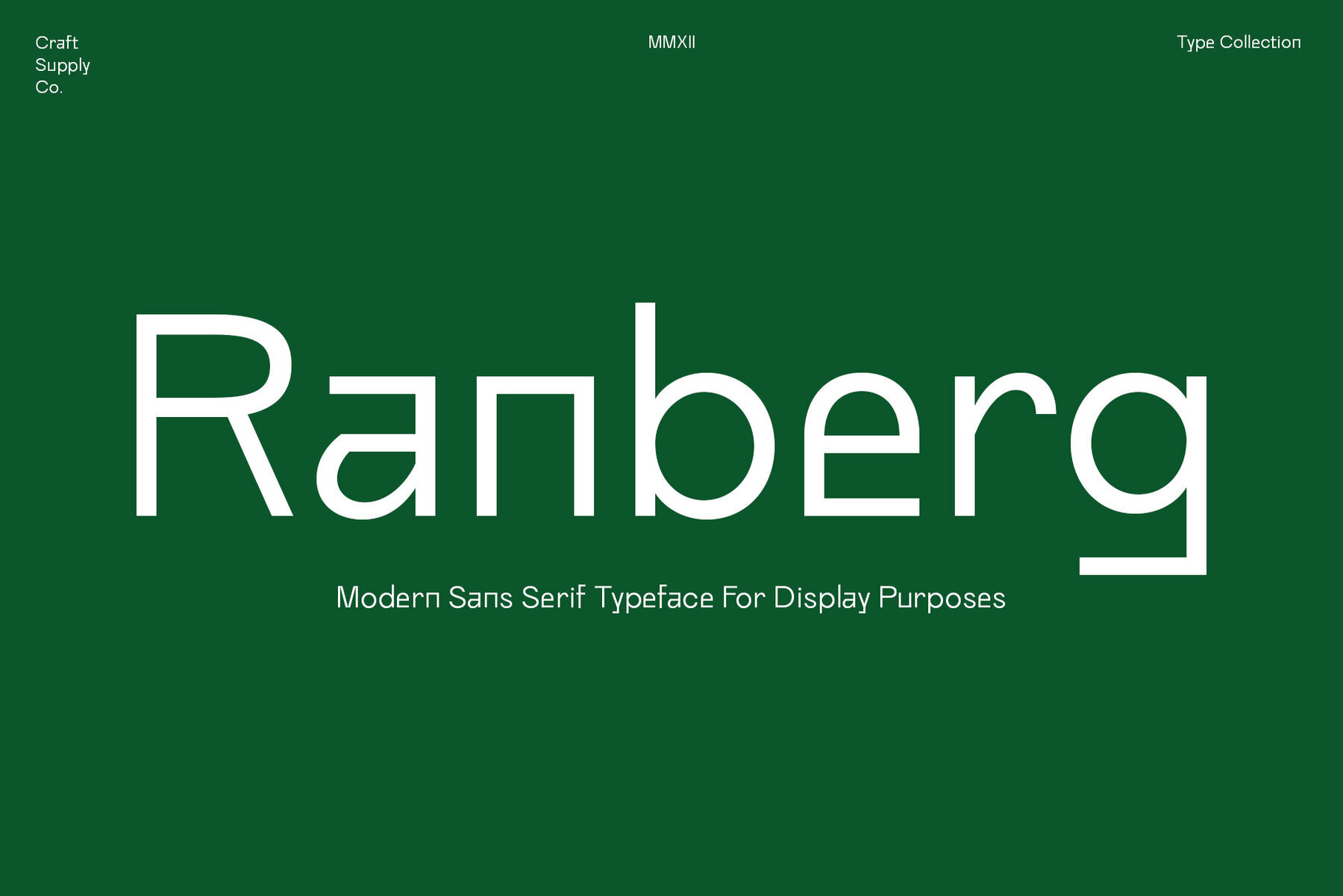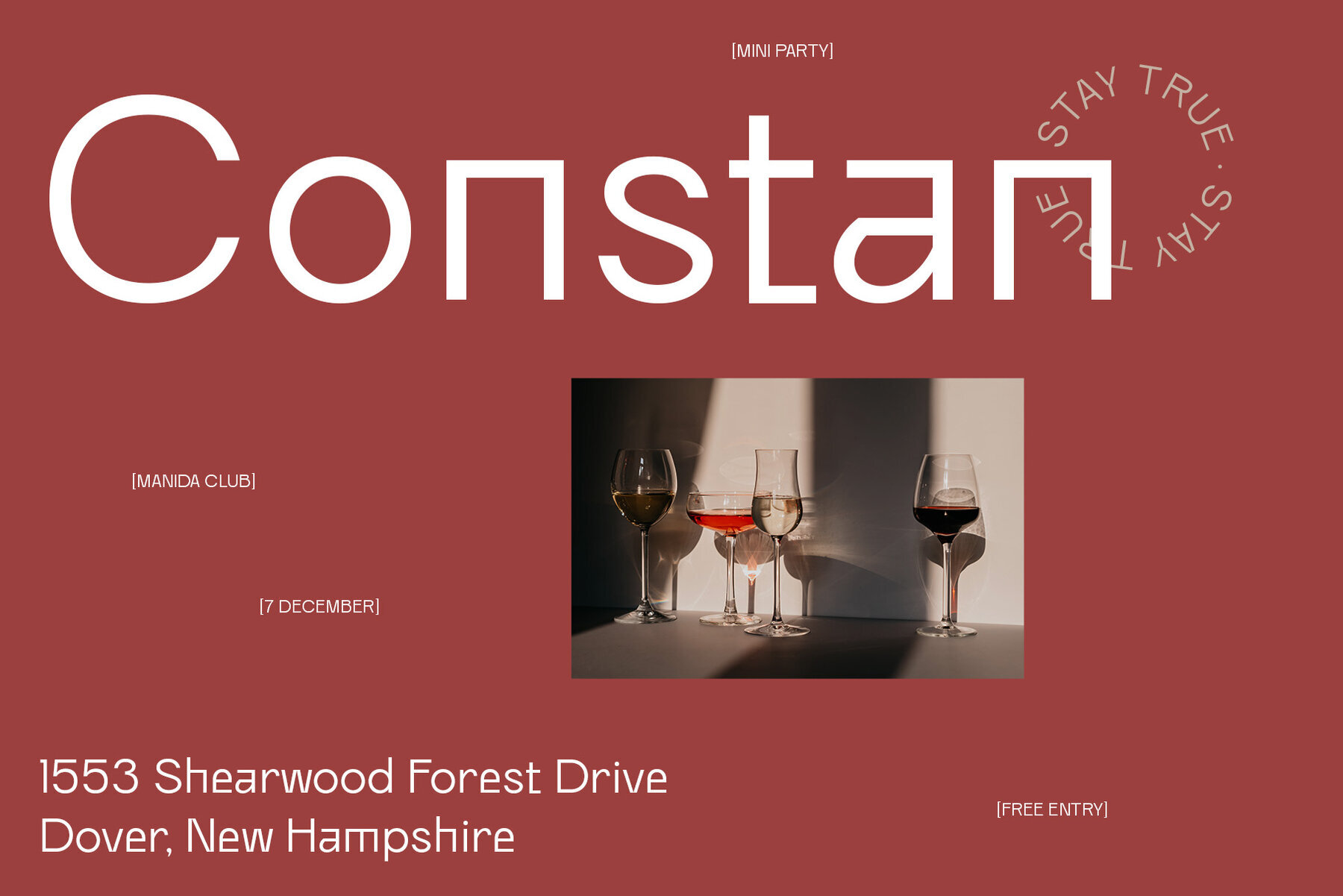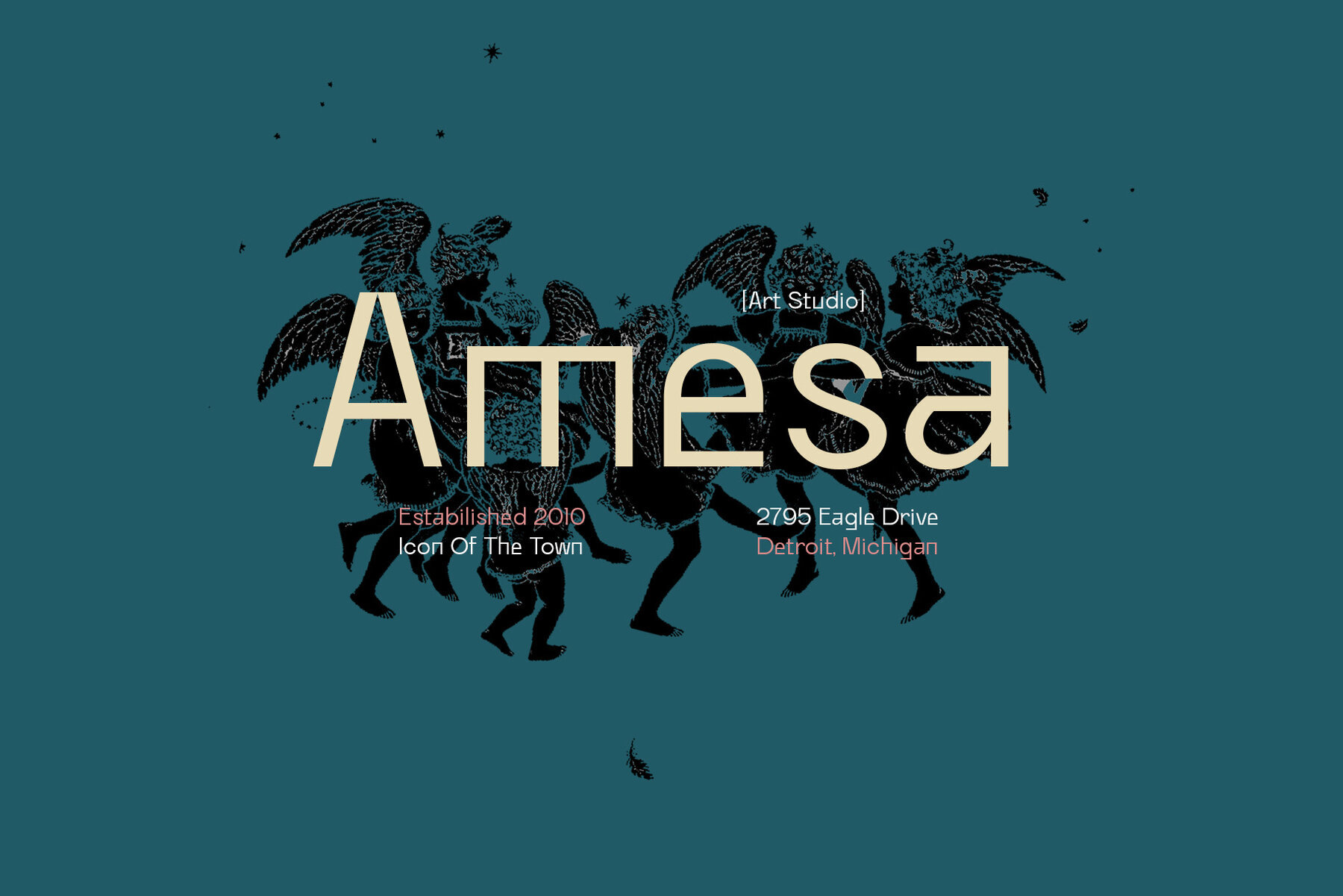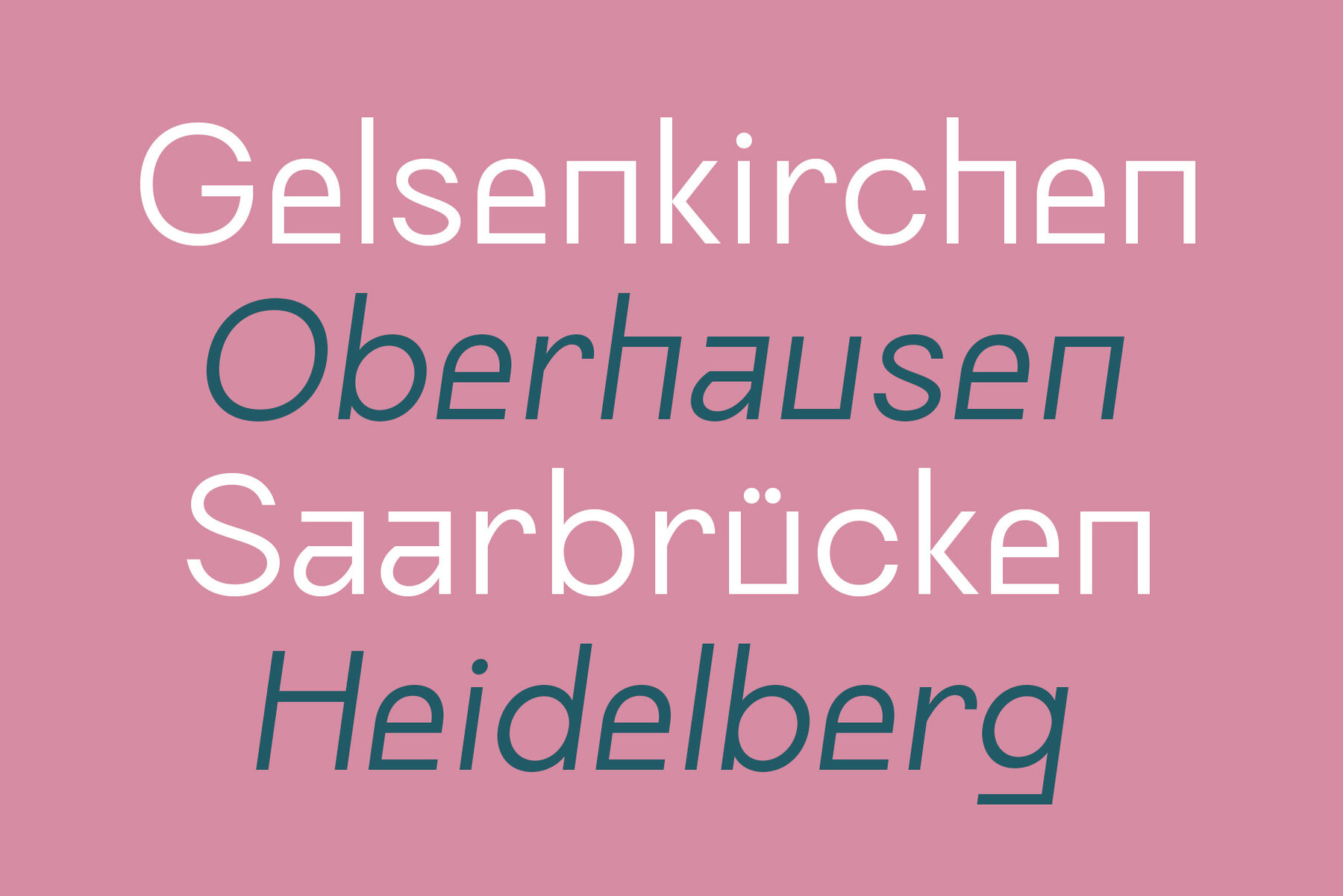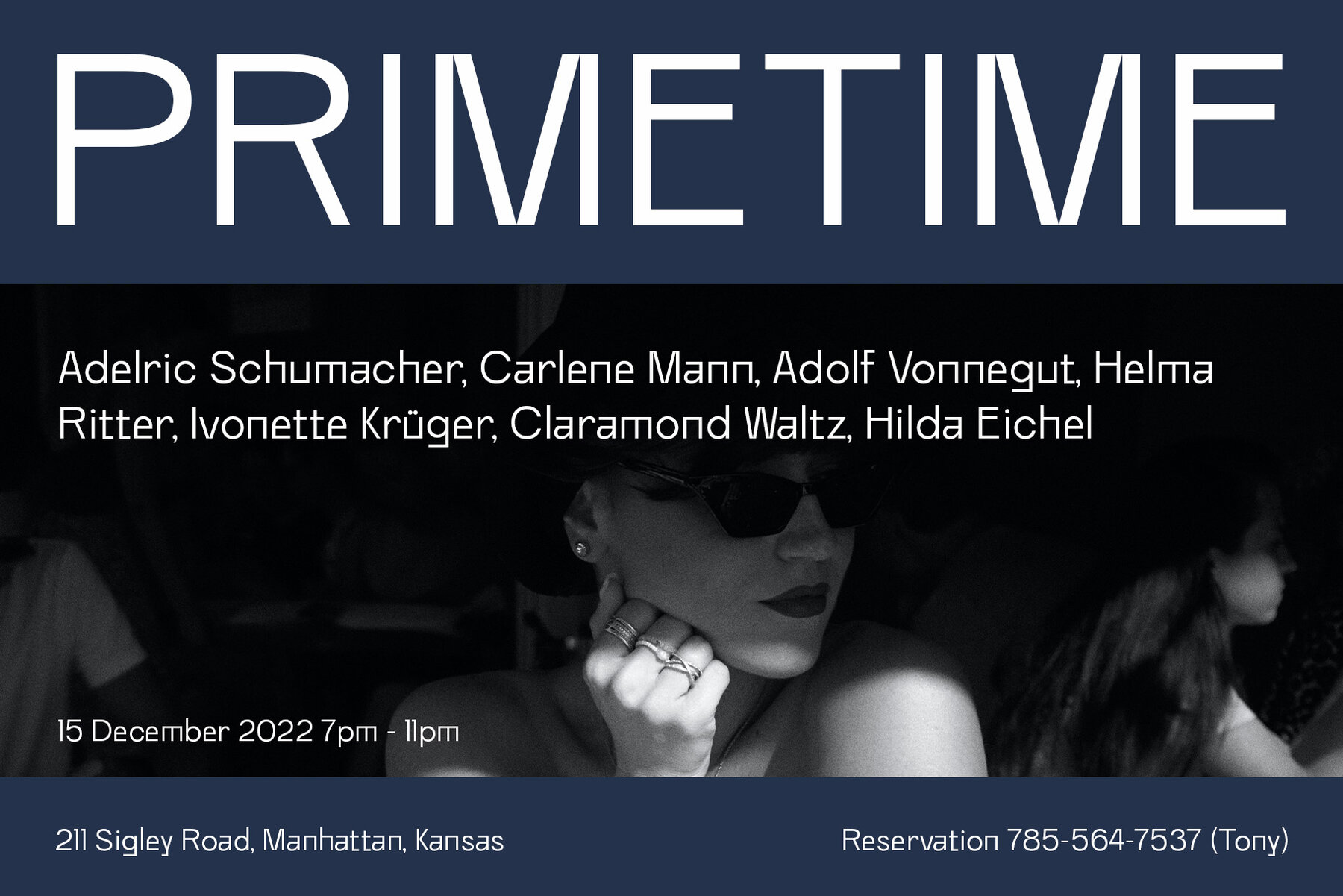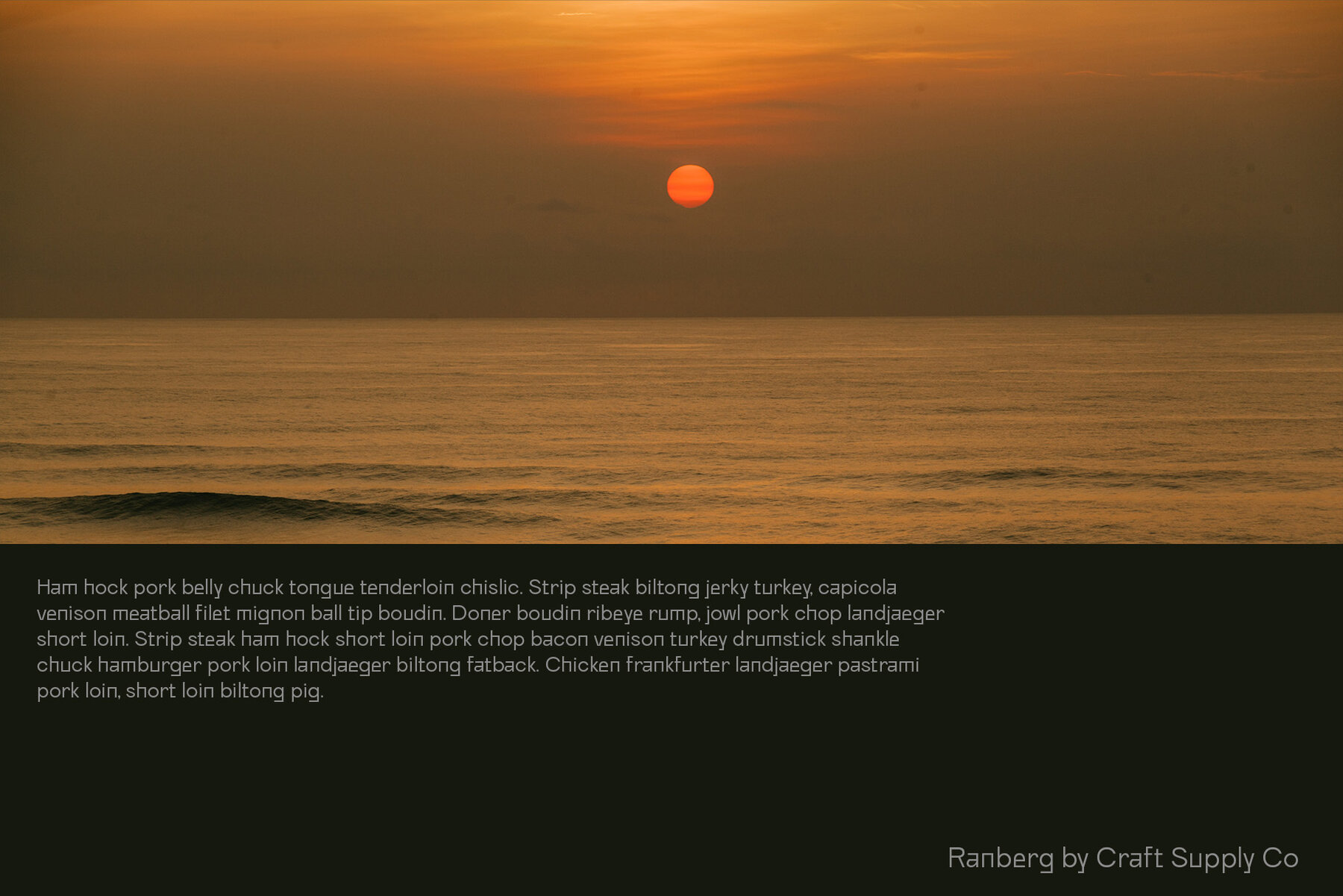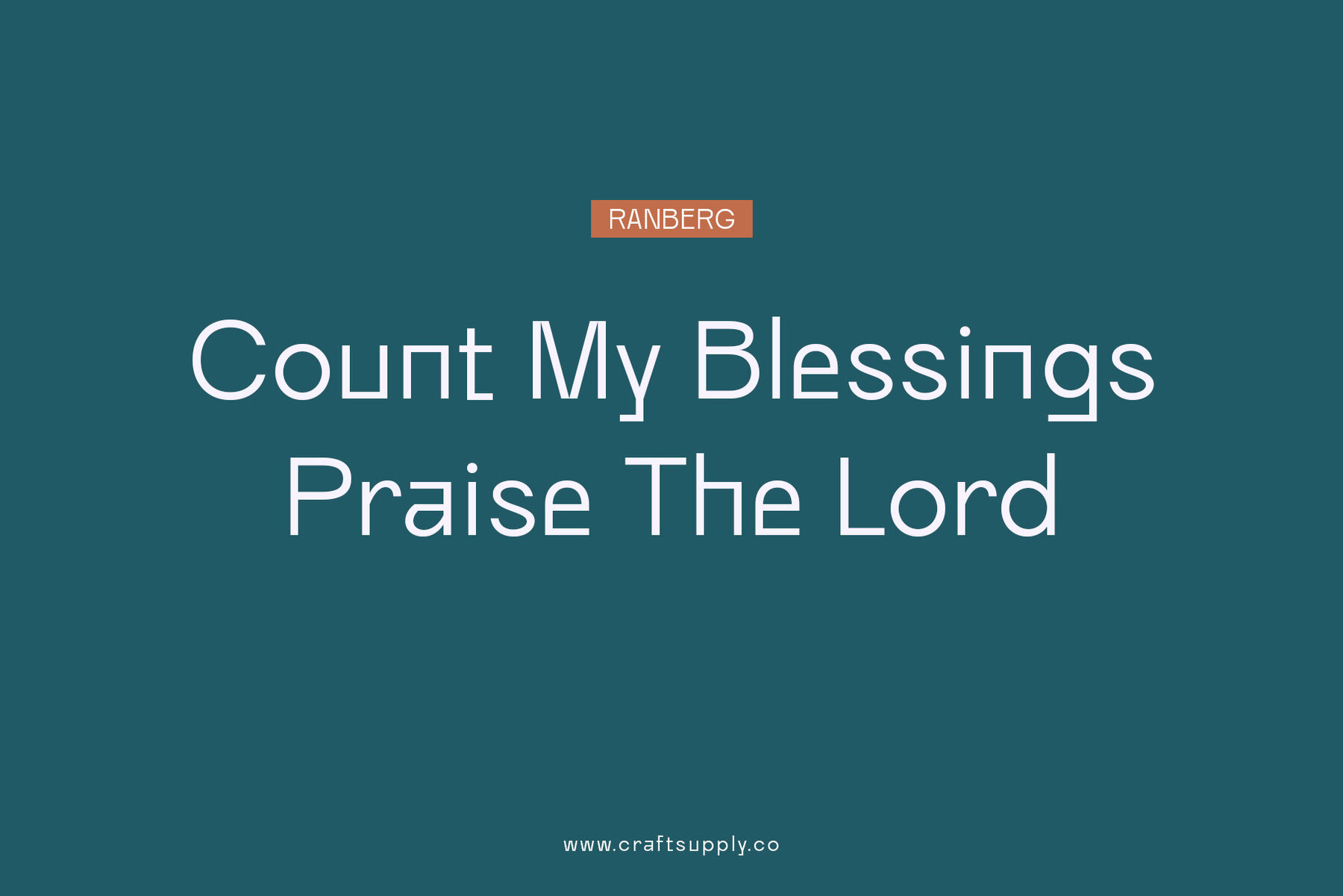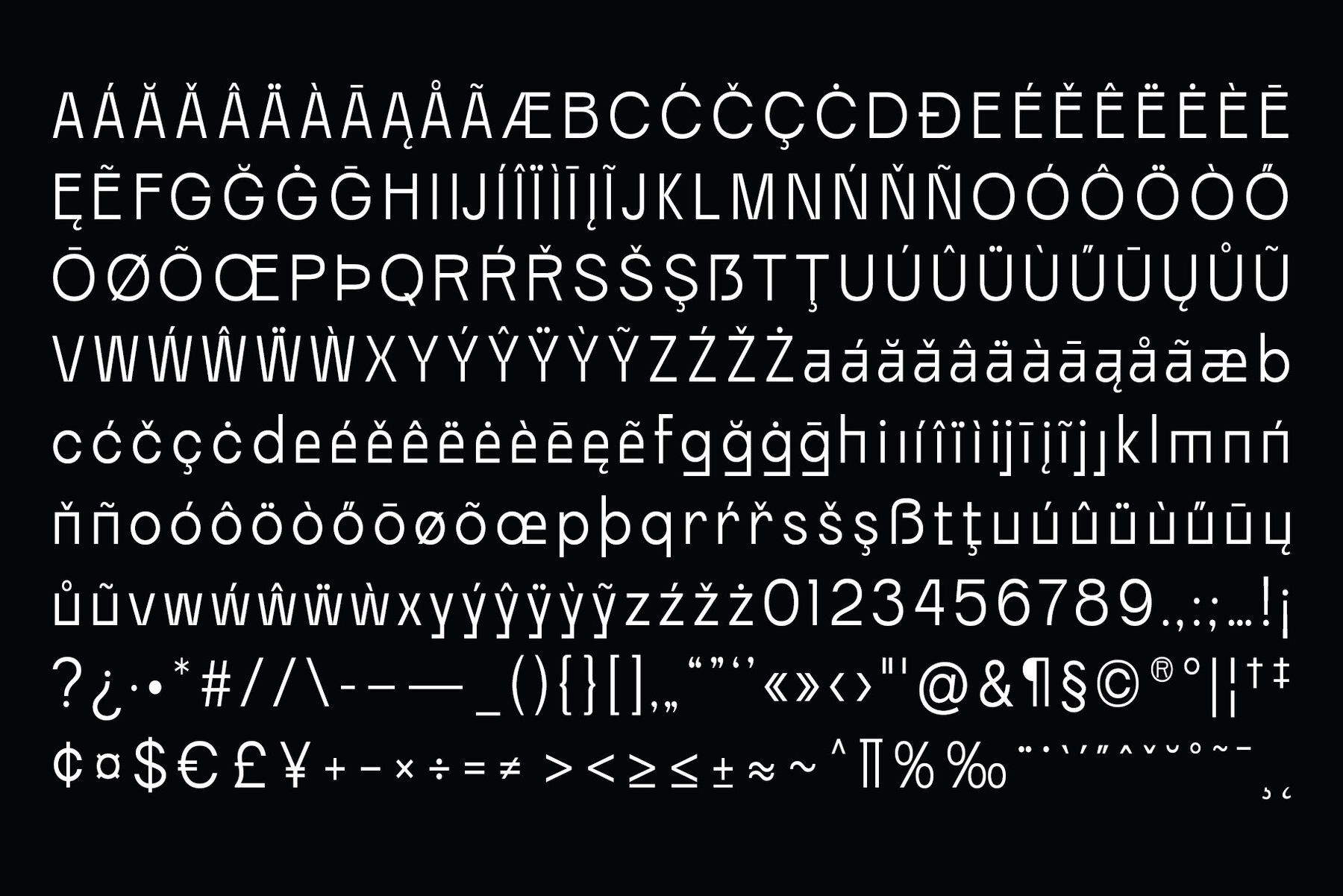
Ranberg Font
Ranberg, a brand new sans serif typeface that's perfect for any modern design project. This stylish font combines grotesque and geometric elements to create a truly unique look. Whether you're working on a greeting card, a package design, or even a brand identity, Ranberg is the perfect choice for any project that needs a touch of flair.
Features :
- Numerals & Punctuations (OpenType Standard)
- Accents (Multilingual characters)